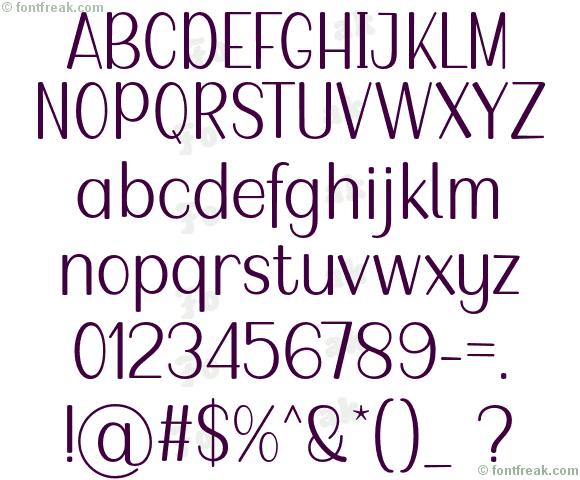
Tangiang
About Tangiang
Tangiang is a captivating display font designed by Situjuh Nazara, categorized as a decorative typeface that brings a unique flair to any project. The font features a distinctive stroke weight that balances elegance with boldness, making it visually striking. Its smooth curves and slightly exaggerated forms add a whimsical touch, while maintaining good readability. The contrast between thick and thin strokes creates an engaging visual rhythm, and the spacing is thoughtfully designed to ensure clarity even at larger sizes.
This font is ideal for various creative applications, making it a versatile choice for graphic designers and content creators alike. Tangiang can elevate wedding invitations with its charming aesthetic, making special events feel even more memorable. It's also perfect for vibrant movie posters, where its unique character can capture attention and convey emotion. Restaurant menus can benefit from Tangiang's decorative qualities, enhancing the dining experience by adding a touch of sophistication. Additionally, branding materials for small businesses can leverage this font to create a distinctive identity that stands out in a competitive market.
What truly sets Tangiang apart is its ability to combine artistic expression with practicality, allowing users to convey messages with both elegance and clarity. This makes the Tangiang font free download a valuable asset for anyone aiming to make a memorable impact through their design work. With its unique features and versatility, Tangiang is a font that inspires creativity and innovation.